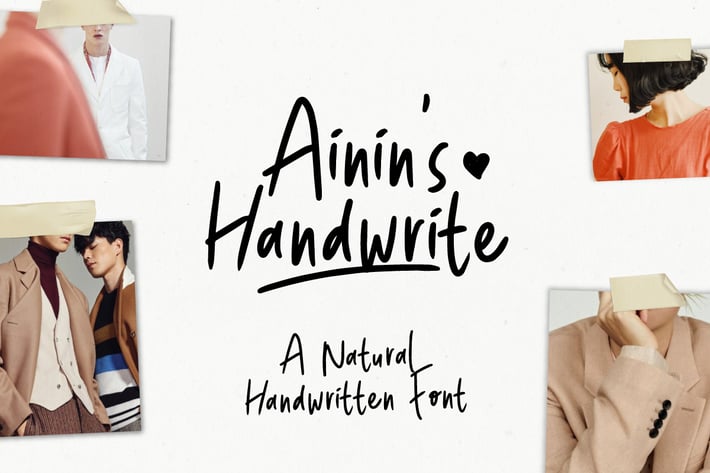
Ainin's Handwrite Font | Playfull Fun Typeface
Ainin's Handwrite Font | Playfull Fun Typeface with a freehand style, So beautiful on invitation like greeting cards, branding materials, business cards, quotes, posters, and more!
Hundred of glyphs